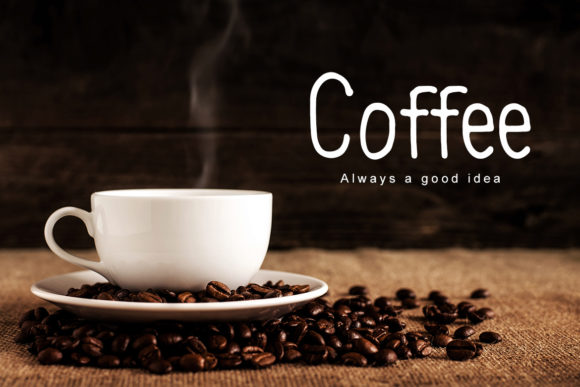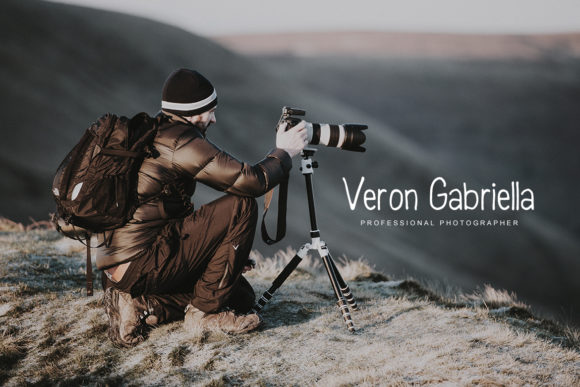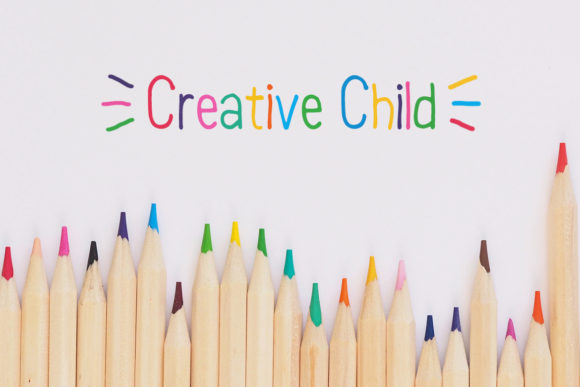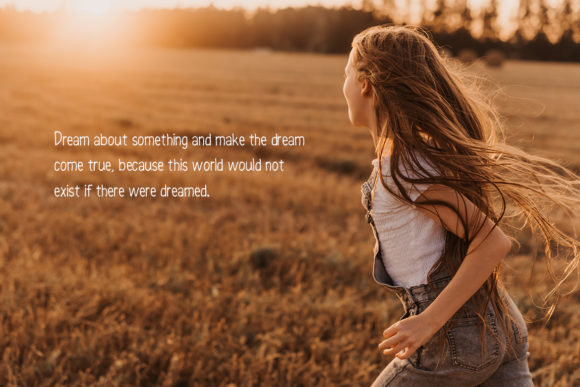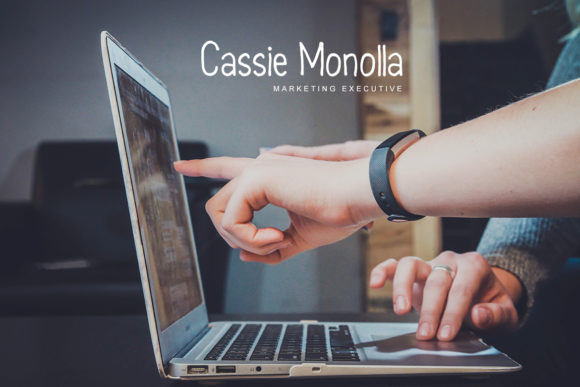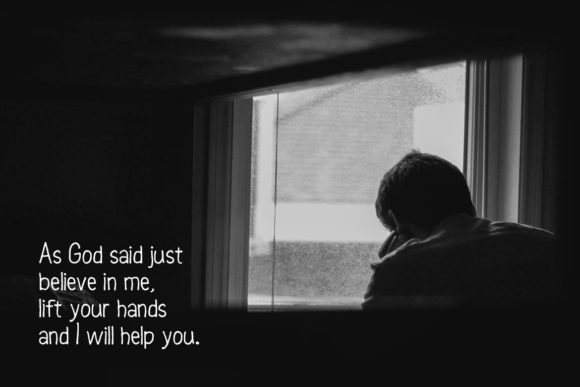
Introduction to Conquine Font
Have you ever been stuck on a creative project, struggling to find the perfect font to bring your vision to life? I know I have. Remember that moment when you finally discovered the perfect font, and everything just clicked? For designers, finding the right font can make all the difference between a mediocre design and a masterpiece. That’s why I’m excited to introduce you to the Conquine Font, a cool and fresh sans serif font that’s about to become your new go-to design resource.
With its unique vibe and high-quality design, the Conquine Font is a valuable addition to any designer’s toolkit. Whether you’re working on a free download project or a high-end commercial design, this font is sure to impress. Plus, with its transparent background, you can easily incorporate it into any design without worrying about distracting elements.
Key Features of Conquine Font
- High-quality font design with a transparent background, ideal for creative projects requiring a unique aesthetic.
- Conquine Font comes in a single size, making it easy to integrate into any design without worrying about scaling issues.
- Designed with a high-resolution 300 DPI, ensuring crisp and clear text display in both digital and print materials.
- Perfect for use in a variety of creative projects, including logos, branding, and typography-based designs, as a design resource.
- Unique characteristics, such as its elegant and modern style, make it a standout choice for designers seeking a distinctive font.
Honest Review: Conquine Font
One of the standout features of the Conquine Font is its high-quality design. The font is meticulously crafted with a transparent background, allowing for seamless integration into any project. I’ve used it for a variety of design tasks, from branding to typography, and the results have been impressive.
Here are some of the things that work well with the Conquine Font:
- ✨ High-quality design: The font is well-crafted and visually appealing.
- ✨ Transparent background: This feature makes it easy to integrate the font into any project.
While the Conquine Font is a great resource, there are a few limitations to consider:
- ⚠️ Limited language support: The font may not support all languages, which could be a limitation for designers working on multilingual projects.
- ⚠️ No bold or italic styles: While the font is well-designed, it’s lacking in bold and italic styles, which could be a limitation for designers who need to create emphasis.
Overall, I’m impressed with the Conquine Font. While it’s not perfect, it’s a great addition to any designer’s toolkit. With its high-quality design, transparent background, and free download, it’s a fantastic option for designers working on creative projects.
Upload the Conquine Font file to Canva and use it in your designs. You can customize the font’s size, color, and style to suit your creative project.
Install the Conquine Font in Adobe Photoshop and Illustrator to access it in your designs. You can use it to create logos, graphics, and other visual elements.
Insert the Conquine Font into your PowerPoint or Word document to add a professional touch to your presentations and reports.
Tips for Getting the Most Out of Conquine Font
Use Conquine Font with a transparent background to create visually appealing designs. Experiment with different font sizes and styles to add depth and interest to your creative project.
Common Use Cases for Conquine Font
Conquine Font is ideal for creative projects that require a high-quality, professional font. Use it for logos, graphics, presentations, and reports to make a lasting impression.